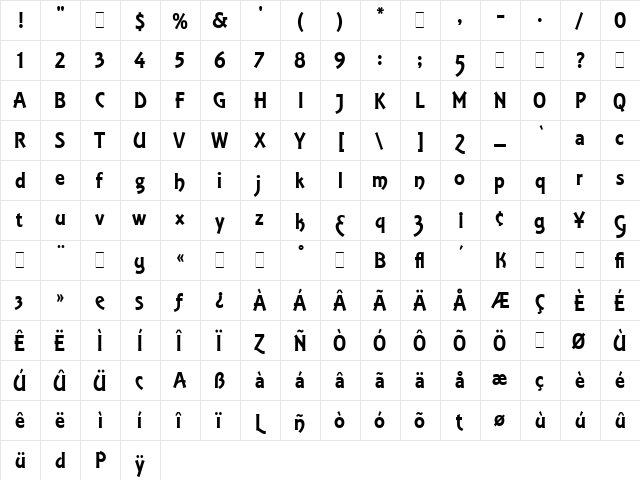
Equinox LET Regular
Design Context for Equinox LET Typeface
Equinox LET offers clean, dependable letterforms without strong stylistic allegiance, making it a practical choice for designers who need flexibility.